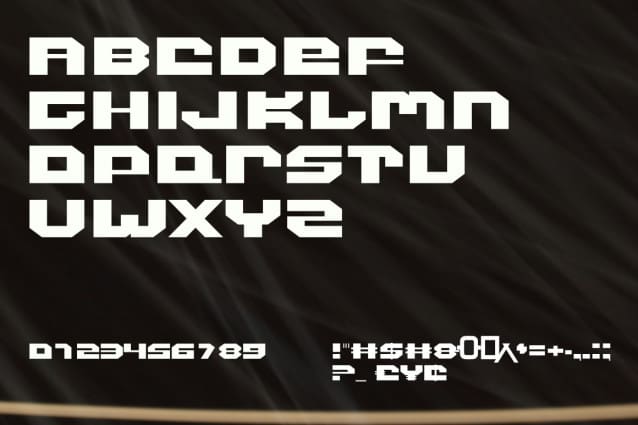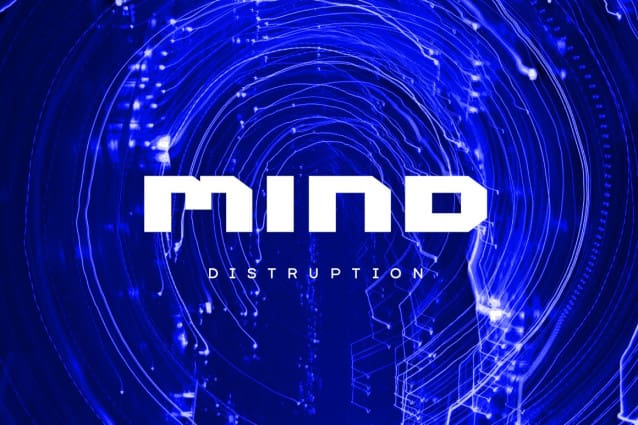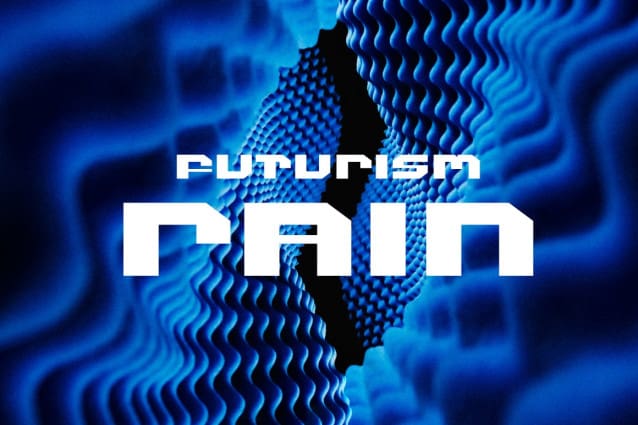
FF Rain Font
FF Rain Font, Embrace the future of design and let our tech font redefine how you communicate with your audience. Stand out in the digital landscape and leave a lasting impression with the power of our revolutionary font